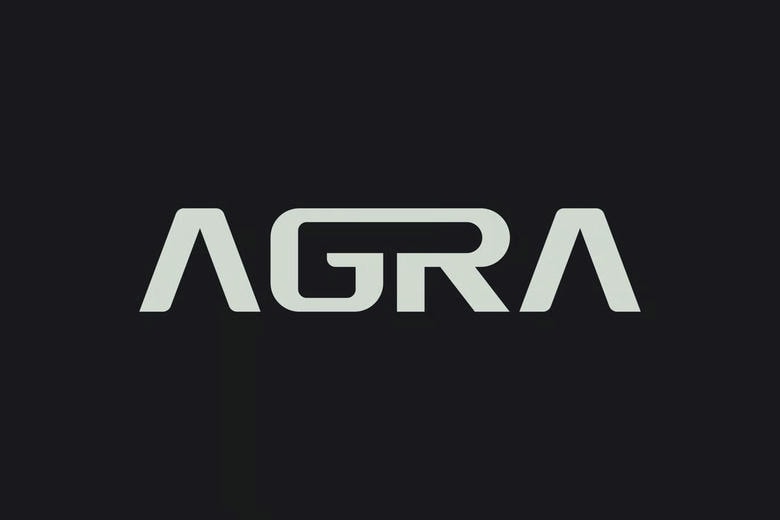
Agra Font
Agra Font- Modern Font is a bold and realistic display font. The font is appropriate in any branding business such as logo, esport and many others. exceptional in a broad context.
Agra Sans Serif Font